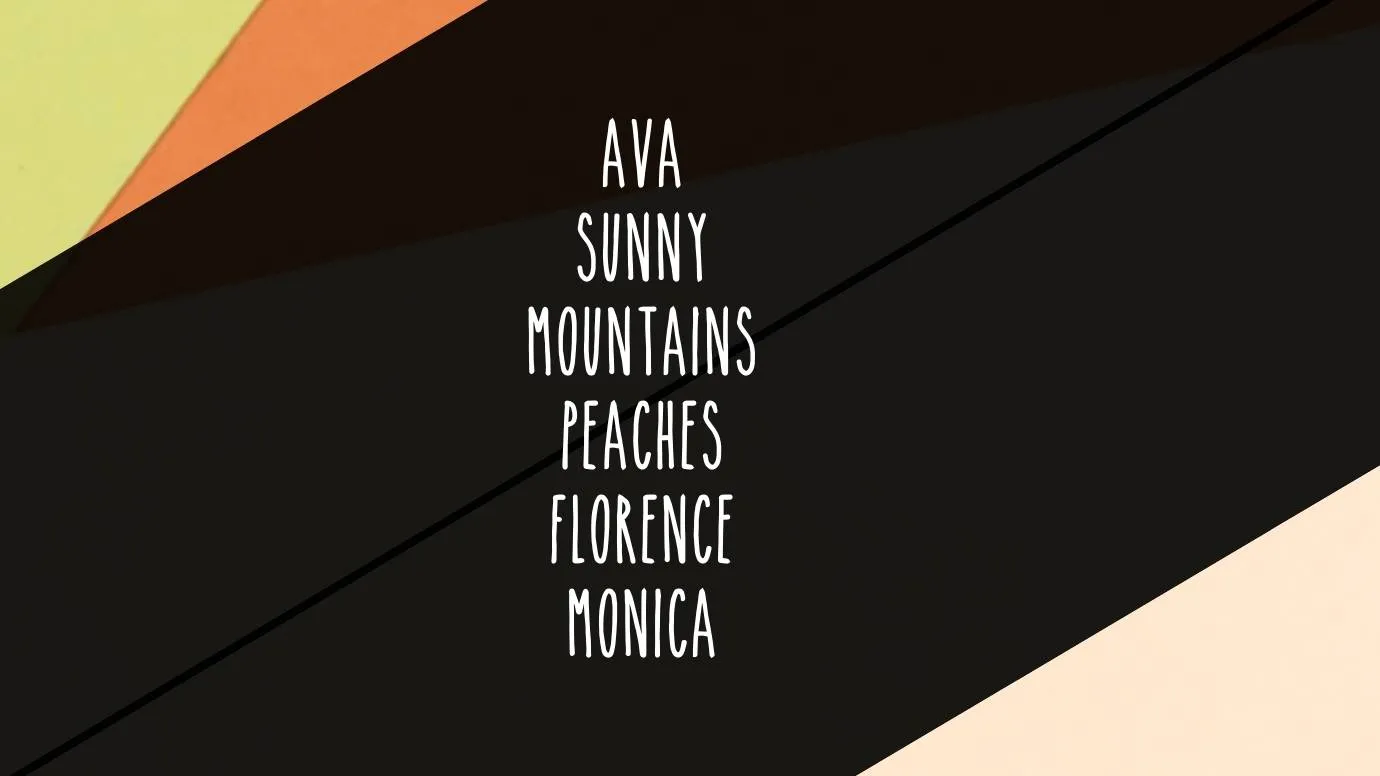
The Skinny Font is a handwritten typeface created by an American artist and designer. The font was inspired by Hyndman’s handwriting, which she says is “a bit wonky and not very uniform.” The Skinny typeface is designed to be used for a variety of purposes, including headlines, body text, and even logos.
The Skinny typeface is available in different styles, including regular, bold, and italic. The font is also available in different weights, including light, medium, and heavy. The Skinny typeface is a great choice for those who are looking for a handwritten typeface that is unique and stylish.
The Skinny typeface has a complete set of characters including, upper and lowercase letters, numbers, and punctuation. The typeface is available in TrueType format for both Windows and Mac. This typeface is similar to the congratulations font.
Creator of The Skinny Font
This stunning and beautiful typeface is created by an American typeface designer Justine Lazo for the foundry Juse Box in 2013.
This font style is designed with a unique and consistent style. This single attractive style is a mixture of various characteristics, containing upper- and lower-case letters, numbers, punctuations, symbols, special characters, glyphs, and multiple language support.
View of The Skinny Font
| Name | The Skinny Font |
| Designer | Justine Lazo |
| Foundry | Juse Box |